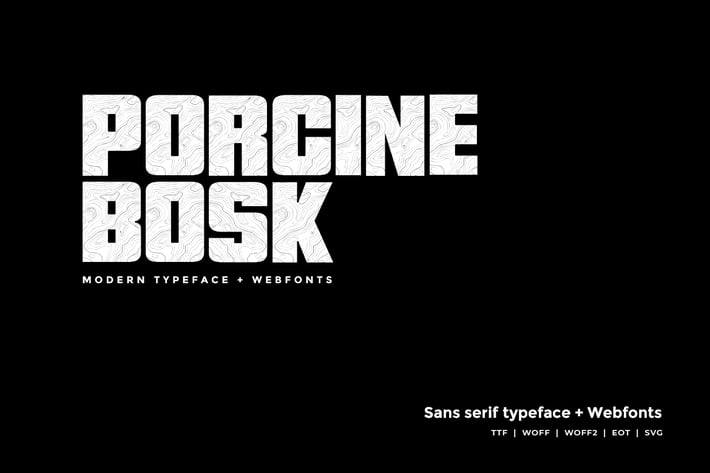
Porcine Bosk - Modern typeface + WebFont
Porcine Bosk typeface
Porcine Bosk is a modern Sans Serif typeface designed with Wooden Texture, porcine is very much suitable for Posters, headlines, Block letter, Subheading, Logo Designs, Big Banners, Web designs. Classic & Decorative Typography Web Designs.
Font Designed and Crafted by Michel lona, Distributed by Webhance Studio.